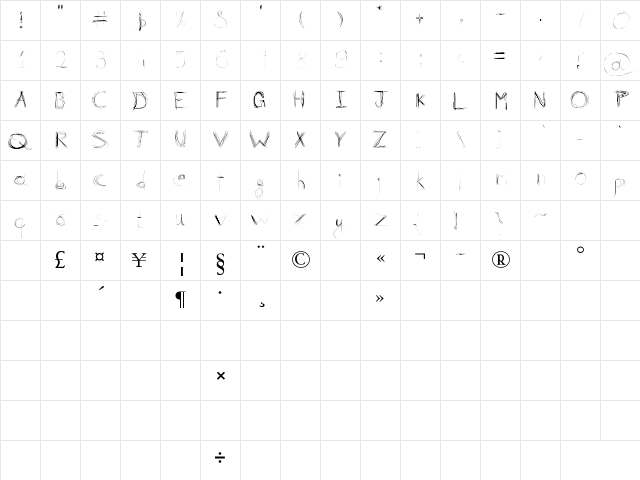
99%LineScratch Regular
Foundry: Habib Shaikh
Designer: Habib Shaikh
Design Context for 99%LineScratch
99%LineScratch is a composed and adaptable typeface that performs quietly and consistently across a wide range of design contexts.
Who designed the 99%LineScratch Regular font?